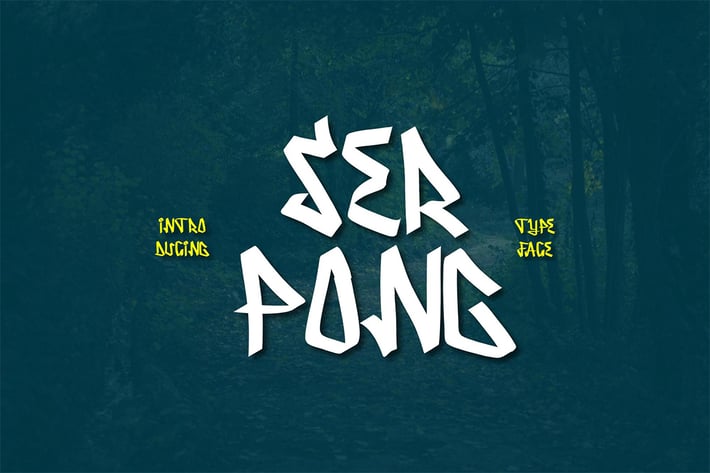
Serpong Typeface
Introducing a new display graffity font with cool characters, symbols, and OpenType Features. Serpong Typeface is perfect for quotes, logos, apparel, advertising, wedding invitations and packaging design.